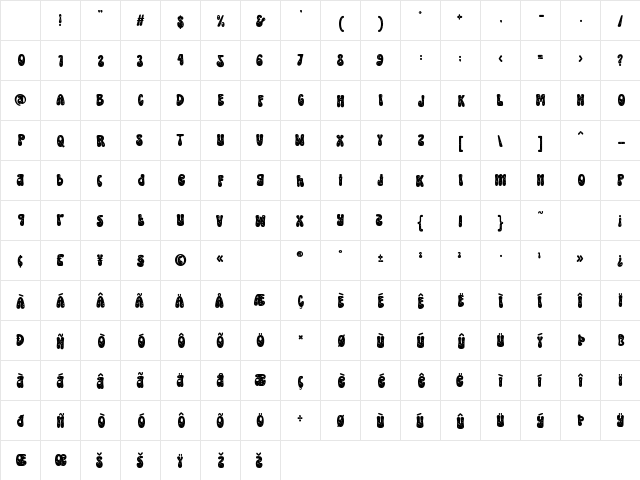
Complete Stick Figure One Texture Regular glyph index. Displaying only characters natively supported by Stick Figure One Texture Regular font.
Stick Figure One Texture embraces imperfection - its rough, textured character adds raw authenticity to designs that want to feel lived-in and unconventional.
Pro Tip: Use Stick Figure One Texture at larger sizes where the texture and irregularity of each letterform can be clearly seen - it loses its character at small sizes.